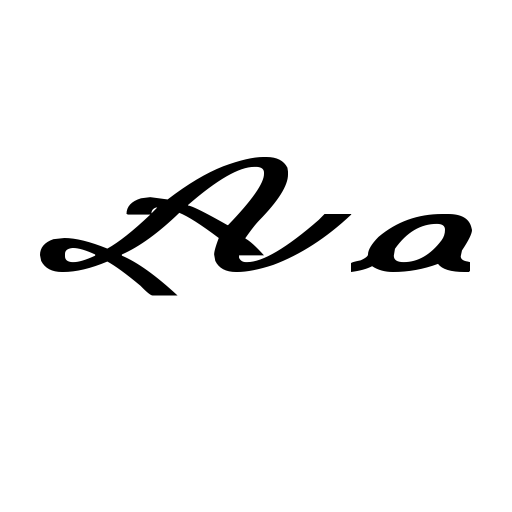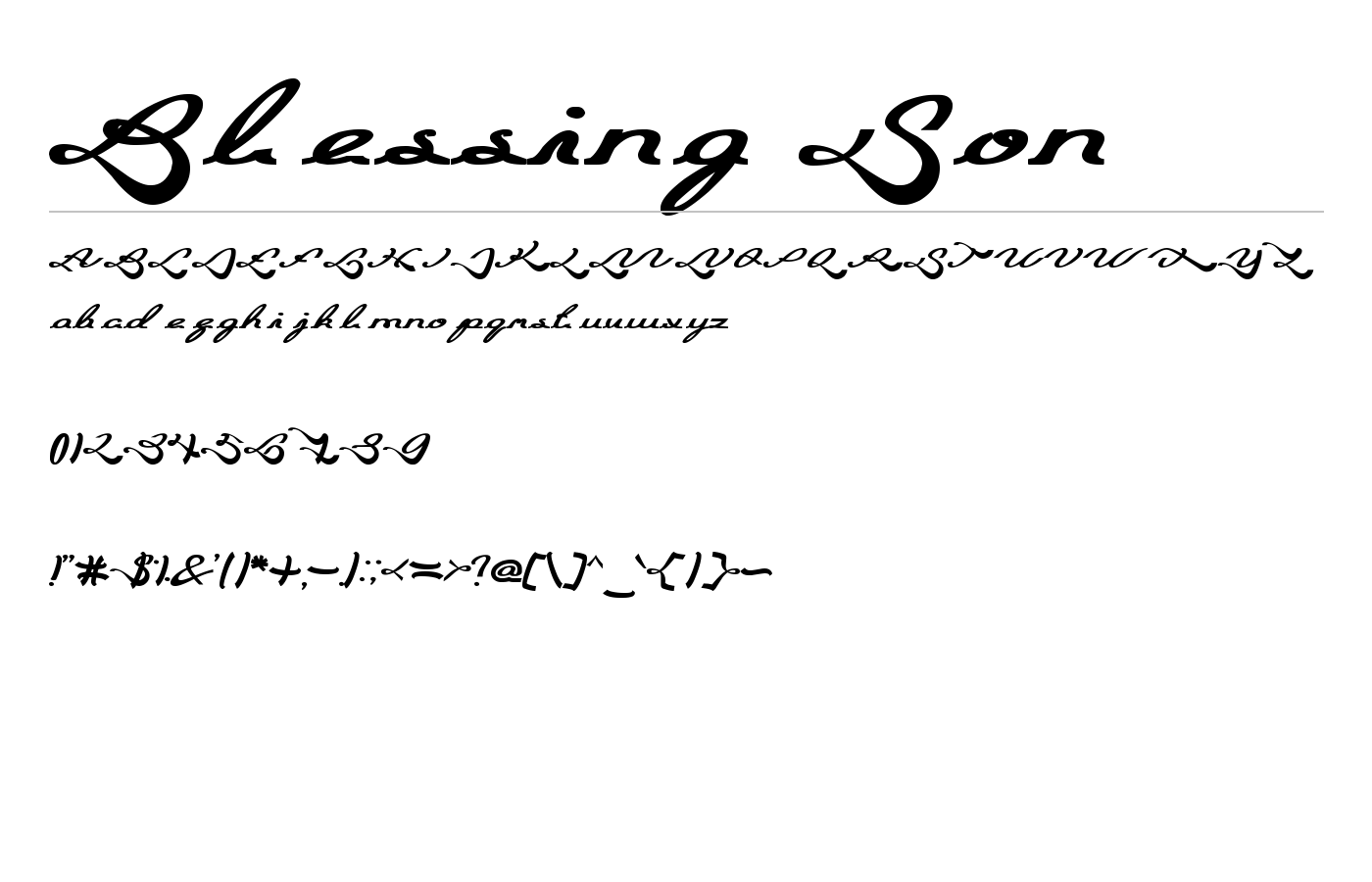
Blessing Son is a decorative script font with elegant, flowing strokes that resemble classic handwritten calligraphy. Its unique swashes and flourishes give it a charming, artistic personality, making it ideal for invitations, logos, and creative projects that want to evoke a personal, graceful feel. This font works best in display uses where its intricate details can shine, adding a touch of sophistication and warmth.
Blessing Son Font
About Blessing Son Font